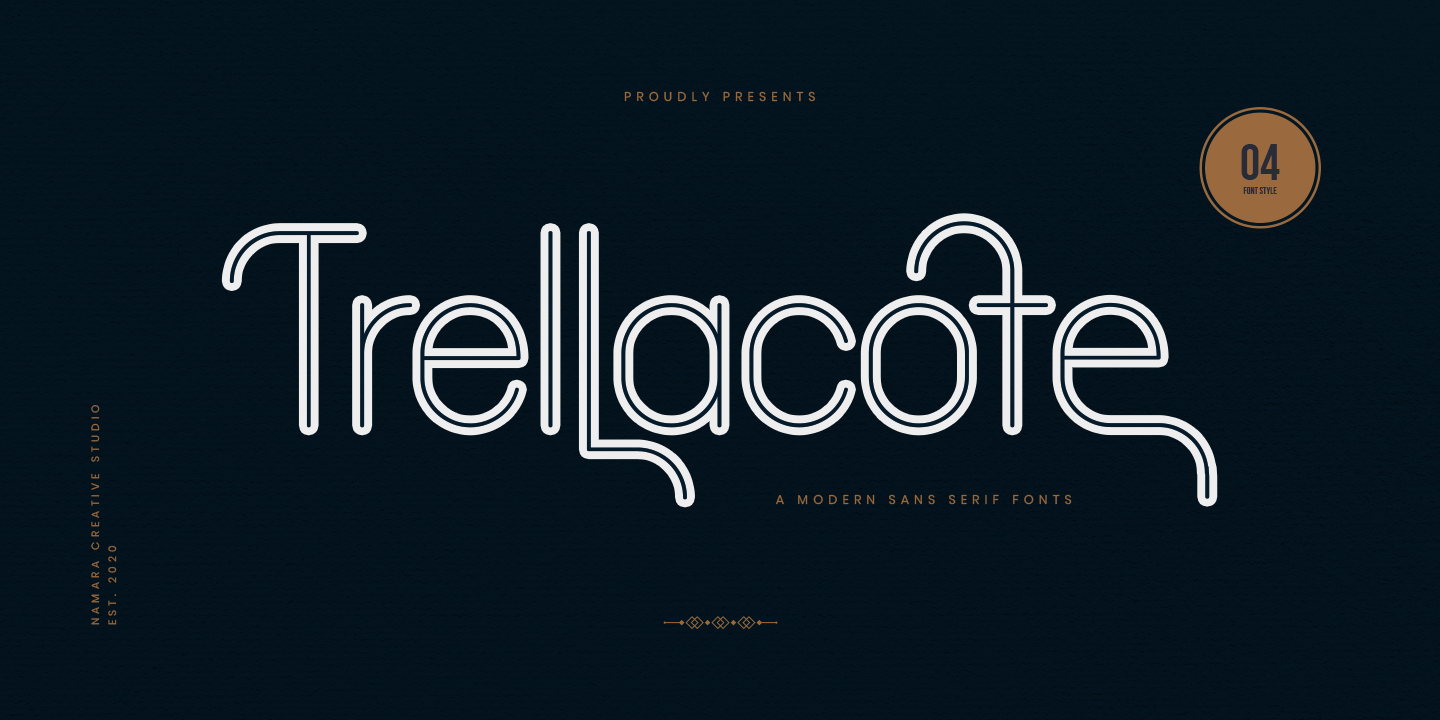
Trellacote Font is an excellent choice for projects that demand a modern, geometric, and highly versatile aesthetic. It's perfectly suited for tech startups, architectural firms, minimalist branding, magazine layouts, and contemporary web design. Its clean lines and balanced proportions make it ideal for conveying professionalism and innovative thinking.
What makes Trellacote Font so exciting is its remarkable blend of structural integrity and subtle humanist touches. It often features precise angles and consistent stroke widths that provide a sense of order and clarity, while subtle curves might add a touch of approachability. This font doesn't just display text; it builds a visual framework, giving any design a sophisticated and intelligent character.
The Trellacote Font family typically offers a comprehensive range of weights and styles to ensure maximum flexibility and impact. You'll often find Trellacote Regular, along with light, medium, bold, and sometimes extra-bold options. Many families also include corresponding italic versions, allowing for nuanced emphasis and structured hierarchy within your designs. These extensive family members ensure you can maintain a consistent and professional look across all your creative endeavors. For those ready to explore its potential, Trellacote Font Free Download provides an excellent opportunity to experiment with its versatile charm.